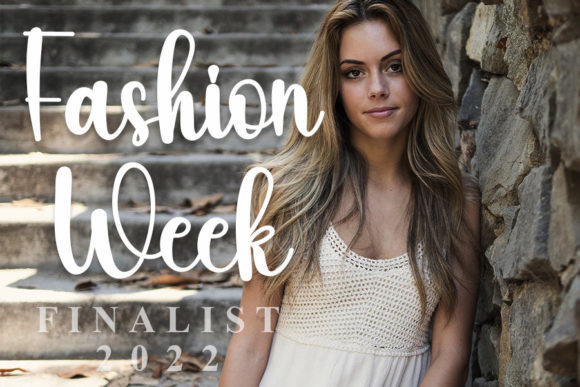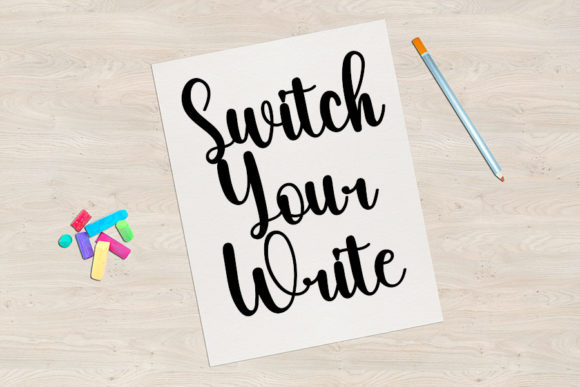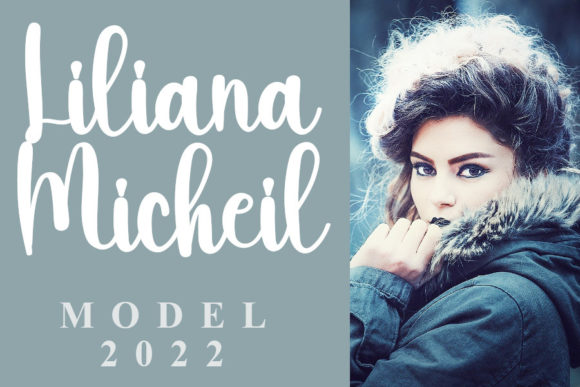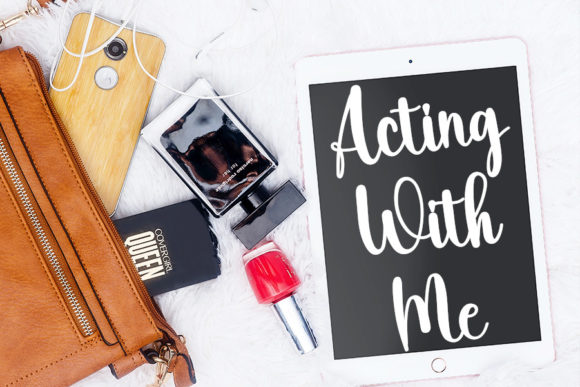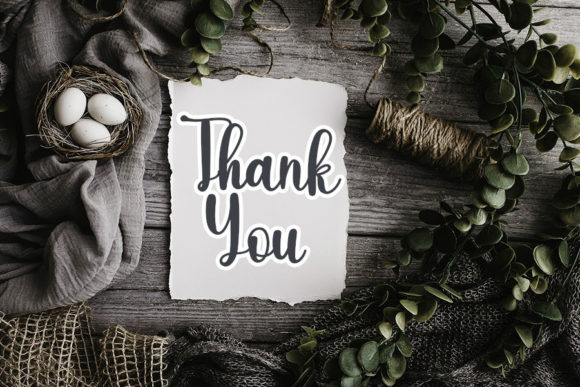
Beautiful Font
About Beautiful Font
Introducing “Beautiful,” a stylish handwritten font that seamlessly blends contemporary flair with impeccable form, inspired by timeless classic calligraphy. Designed to elevate the beauty of your projects, this font offers a balanced and varied aesthetic, making it a versatile choice for a wide range of creative endeavors.
The contemporary atmosphere of “Beautiful” sets it apart, infusing a modern touch into its timeless calligraphic inspiration. Its impeccable form ensures a refined and sophisticated appearance, making it ideal for projects where aesthetics play a crucial role.
Imagine “Beautiful” as the perfect companion for enhancing the visual appeal of your projects. Whether you’re working on invitations, branding, or any creative endeavor that requires a touch of elegance, let this font be the element that adds a stylish and contemporary charm.
In summary, “Beautiful” is more than just a font; it’s a stylish handwritten script meticulously designed to bring contemporary allure and timeless elegance to your projects. Embrace its versatility, and let it be the tool that enhances the beauty of your creations, leaving a lasting impression on your audience.